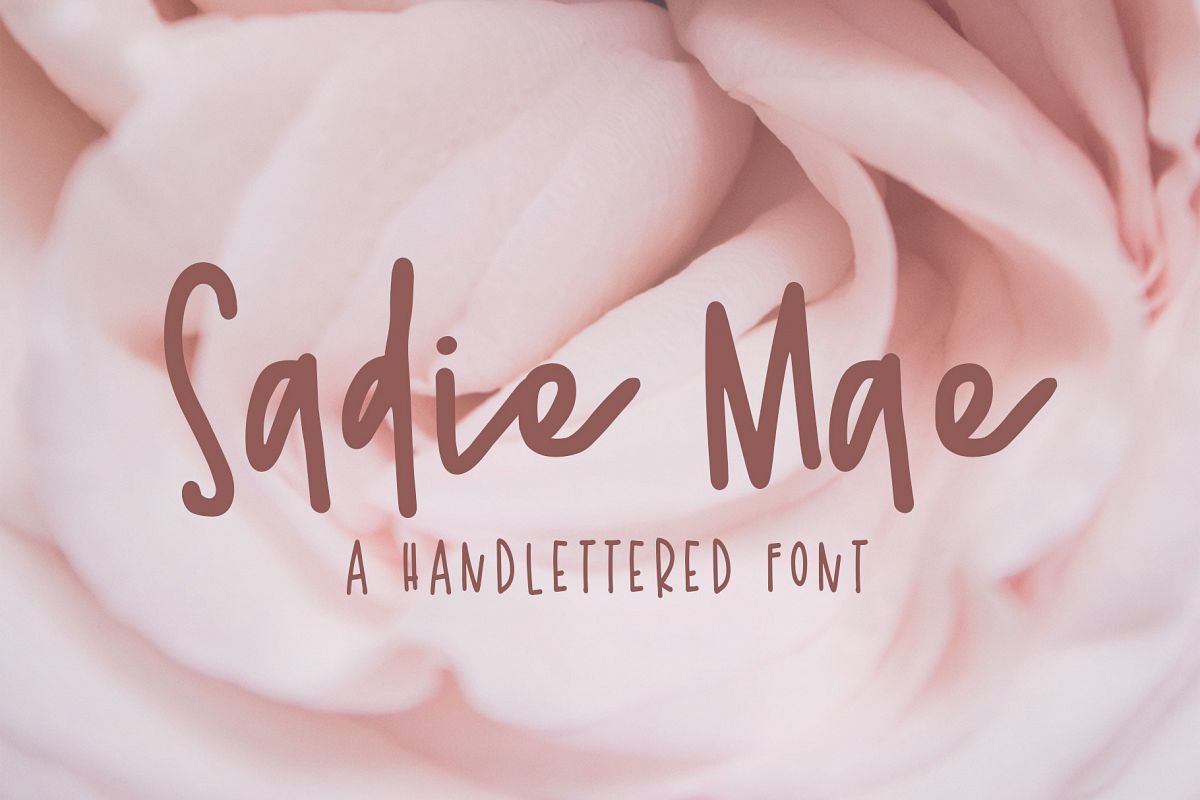
Sadie Mae
Sadie Mae script is a hand-lettered font that includes two styles when all caps and all lower case are used! It includes standard ligatures, and special end forms. Simply access them through the Glyphs palettes in programs like Illustrator or InDesign. If you don't have these programs, you'll still have access to all of the standard and international characters.